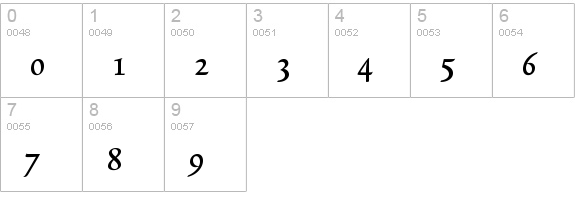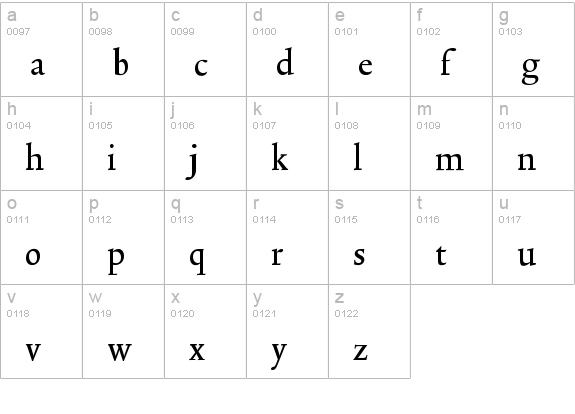
TriniteNo2-MediumCond font exudes an undeniable aura of sophistication and elegance. This font is a harmonious blend of modernity and classic appeal, making it the perfect choice for a wide range of design projects. With its medium condensed style, TriniteNo2-MediumCond strikes the perfect balance between legibility and space efficiency. The letterforms of TriniteNo2-MediumCond are meticulously crafted, boasting clean lines and refined curves. Each character is beautifully balanced, ensuring a seamless flow of text. This font offers a sense of professionalism and clarity, making it ideal for corporate branding, editorial layouts, and any project that requires a touch of refined style. One of the most remarkable aspects of TriniteNo2-MediumCond is that it is freely available to download at FontsMarket.com. This means that designers and typographers have the opportunity to enhance their creative endeavors without any financial burden. The accessibility of this font allows for greater versatility and inclusivity within the design community, enabling everyone to elevate their work to new heights. Whether you are designing a logo, creating a magazine layout, or crafting a website, TriniteNo2-MediumCond is a versatile and reliable choice. Its medium condensed style ensures optimal space utilization without sacrificing legibility, while its timeless aesthetic adds a touch of sophistication to any project. With its availability as a free download at FontsMarket.com, TriniteNo2-MediumCond makes it easier than ever to create stunning designs that captivate and inspire.